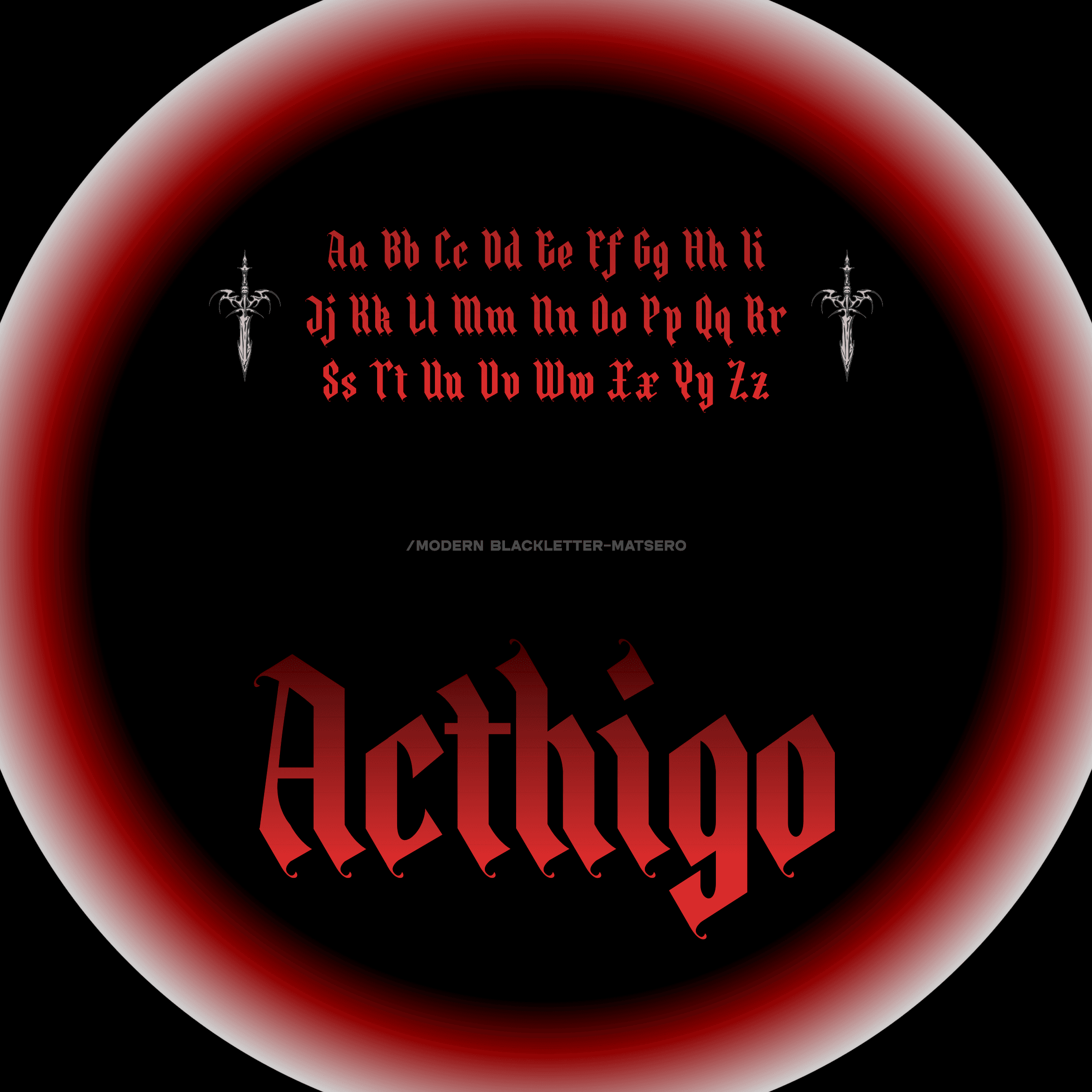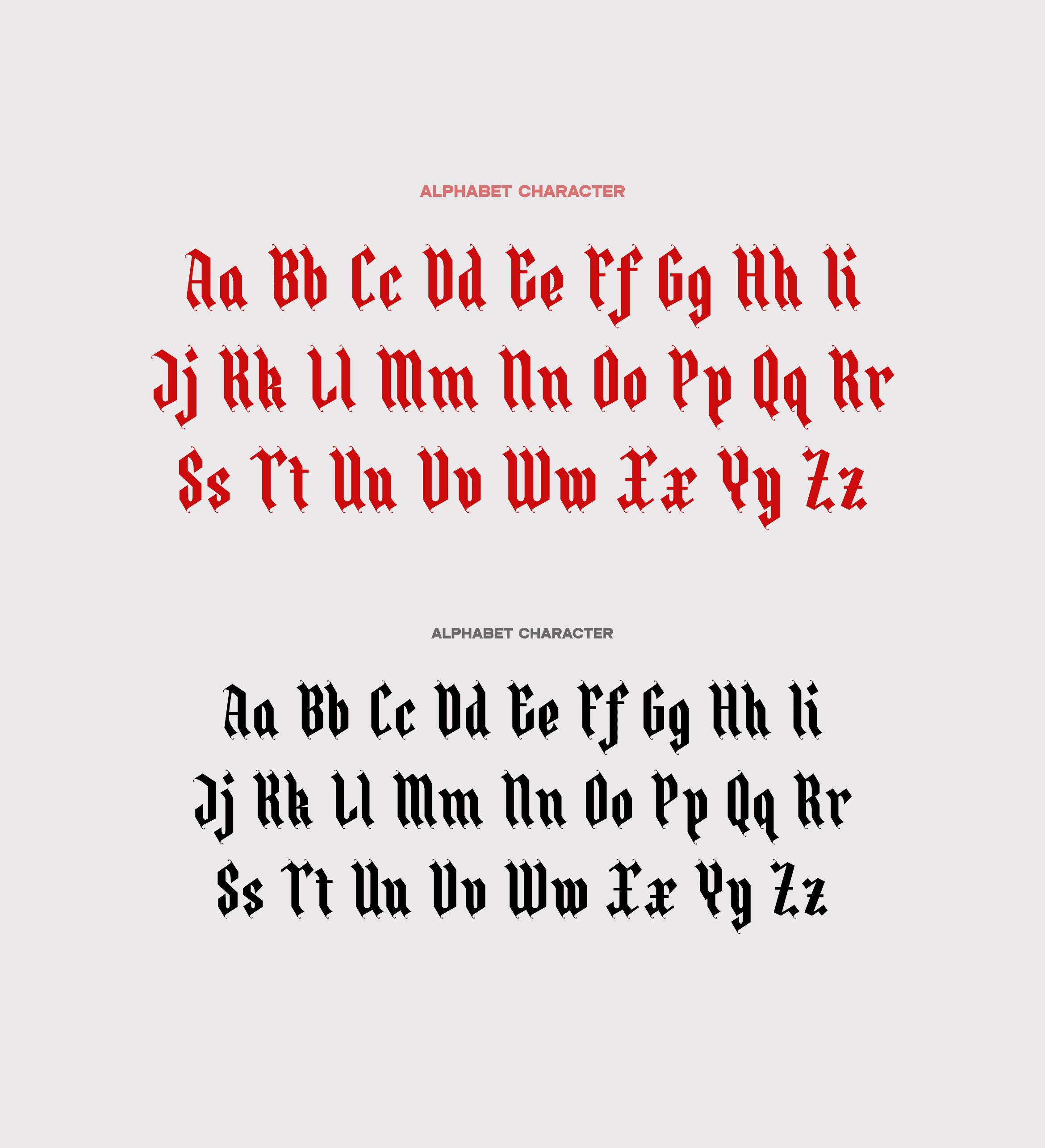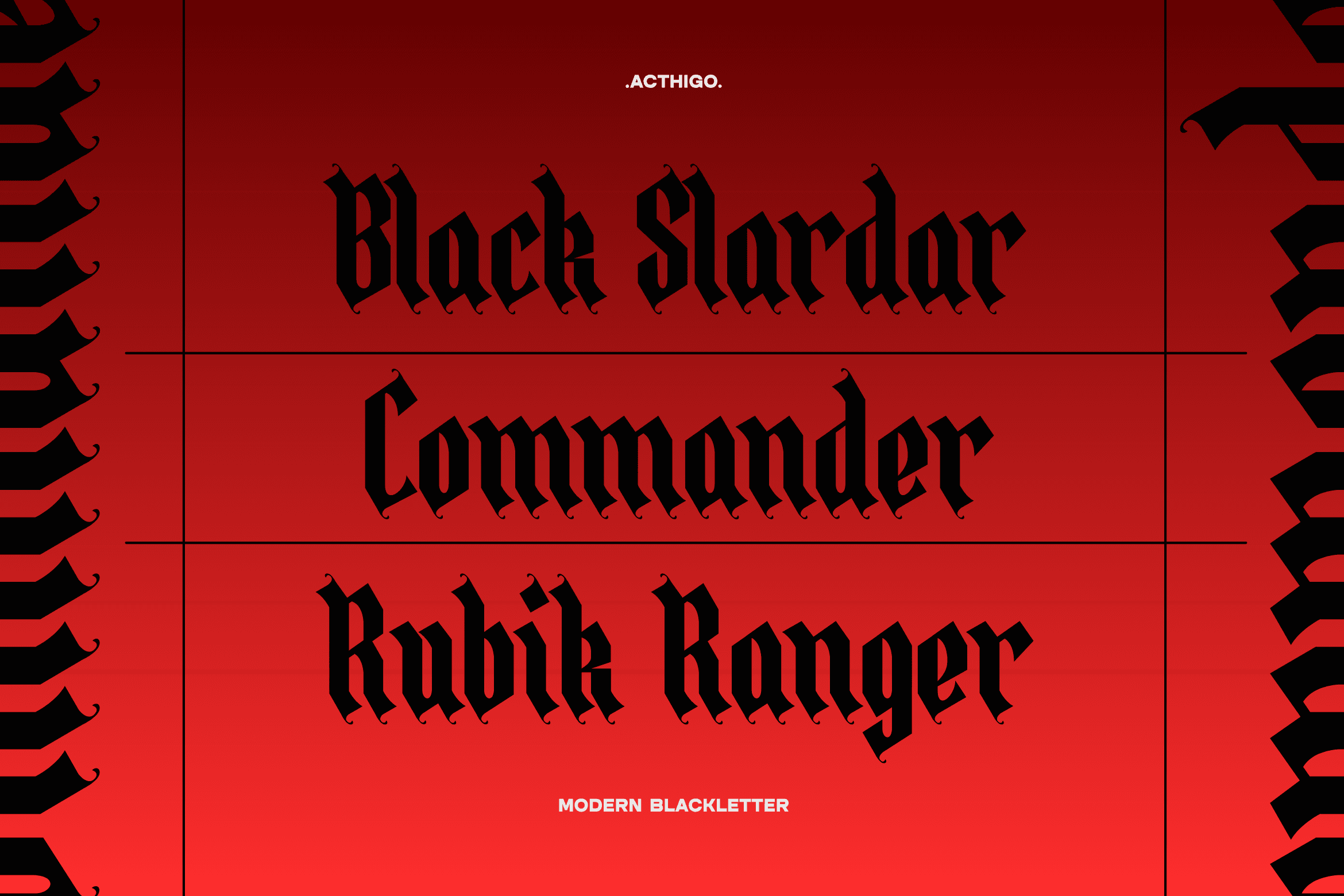
Acthigo
Acthigo is a modern gothic blackletter font crafted for bold, expressive, and high-impact visual identities. Blending traditional blackletter influences with a contemporary edge, Acthigo delivers sharp details, strong contrast, and a dramatic presence that stands out instantly.